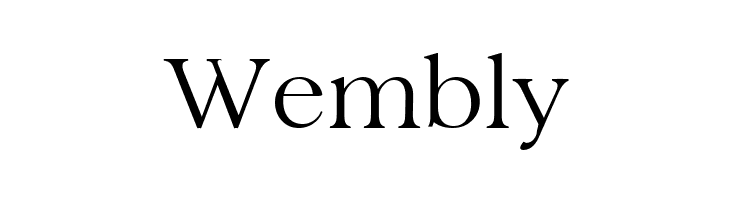
PfefferSGhalbfett-SemiBold Font
- Font: PfefferSGhalbfett-SemiBold
- Weight: SemiBold
A bold, high-contrast serif font with strong, authoritative strokes.